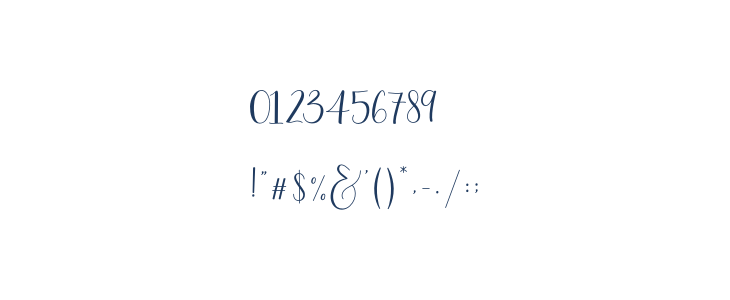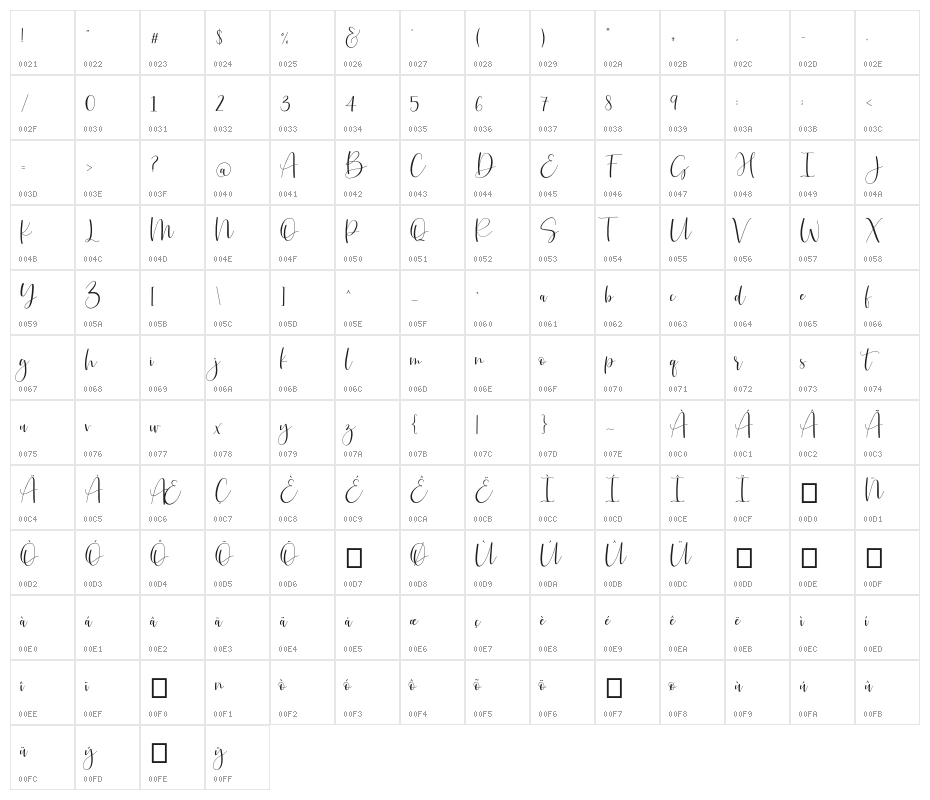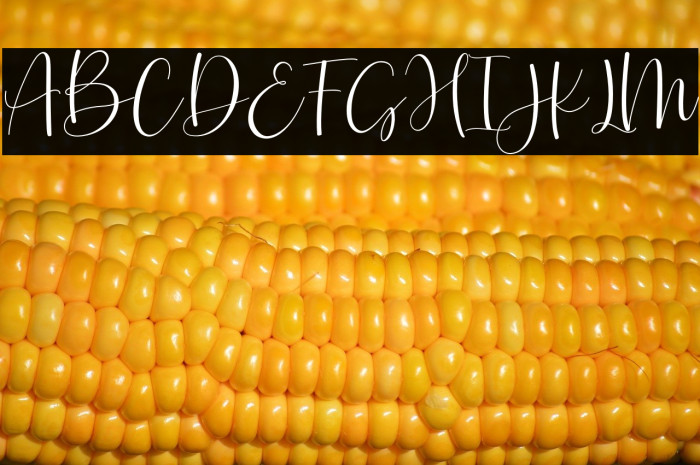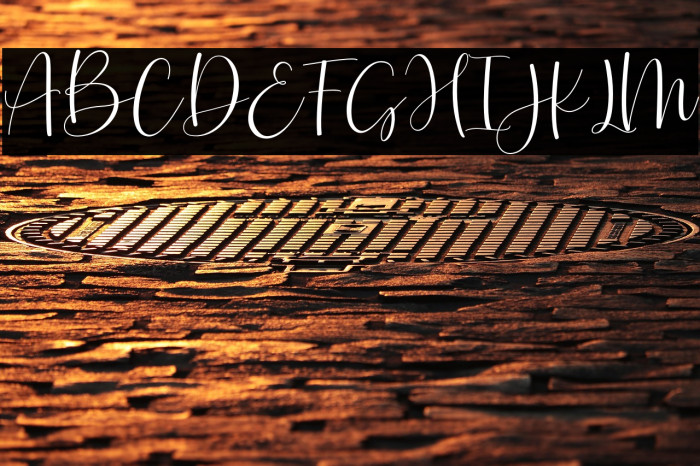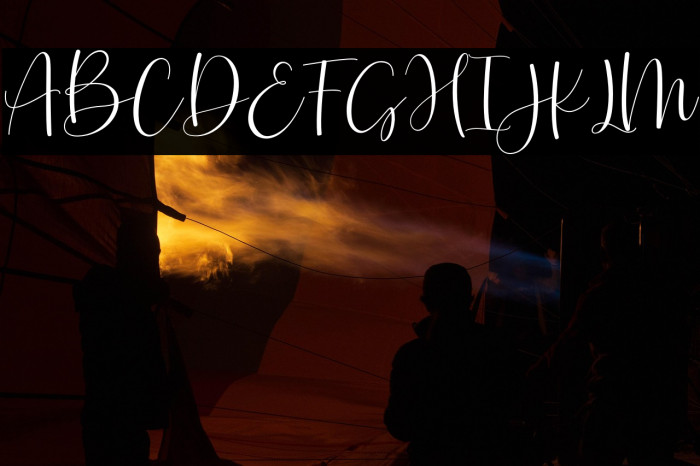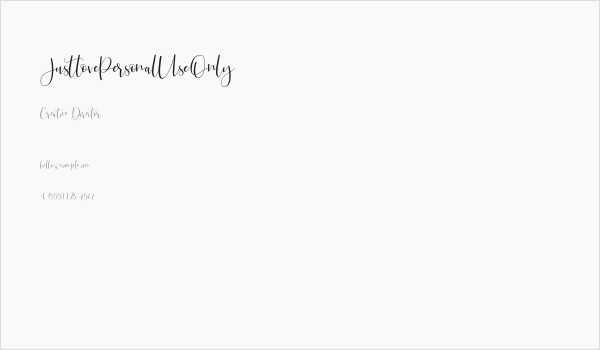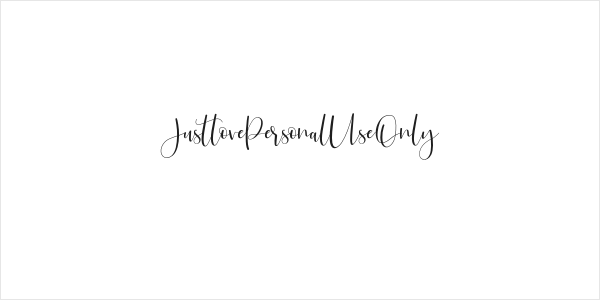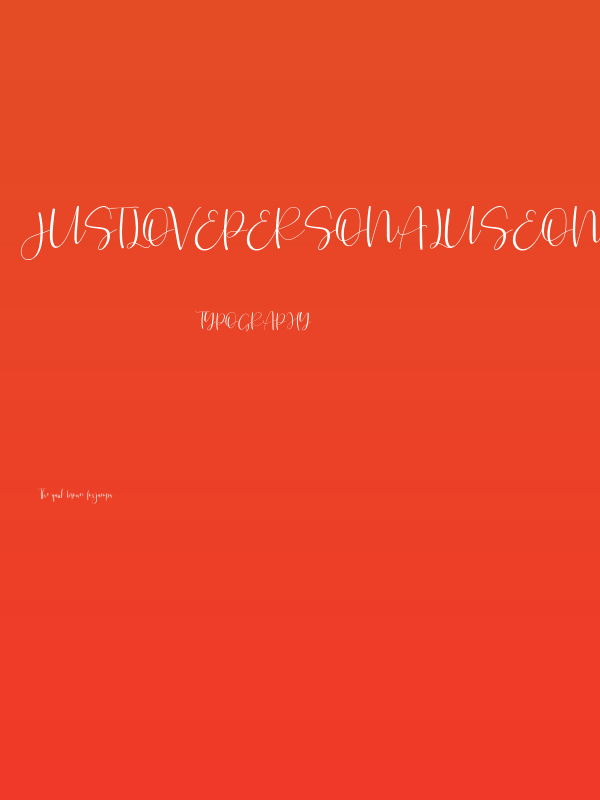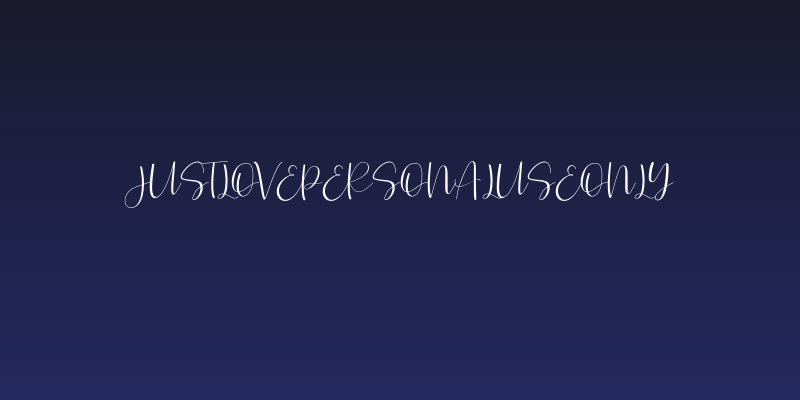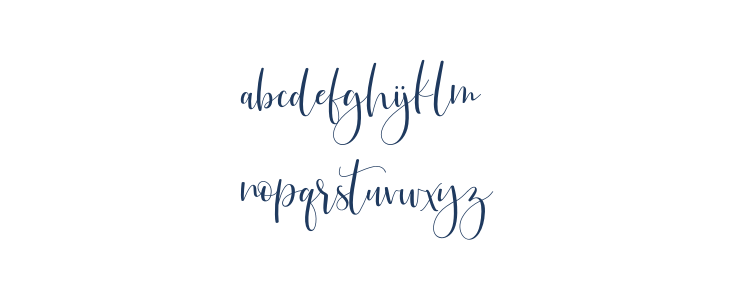
JustlovePersonalUseOnly Font
JustlovePersonalUseOnly Description
This font features an elegant and flowing script style, characterized by its graceful curves and loops. The uppercase letters are bold and sweeping, with a distinct flair that adds a touch of sophistication. The lowercase letters maintain a consistent flow, complementing the uppercase with their delicate and intricate design. Numbers and special characters are crafted with the same attention to detail, ensuring a cohesive look throughout. The overall aesthetic is both romantic and artistic, making it ideal for projects that require a personal and stylish touch.
| Proposed Projects | Ideal for wedding invitations, greeting cards, personal branding, and decorative signage. |